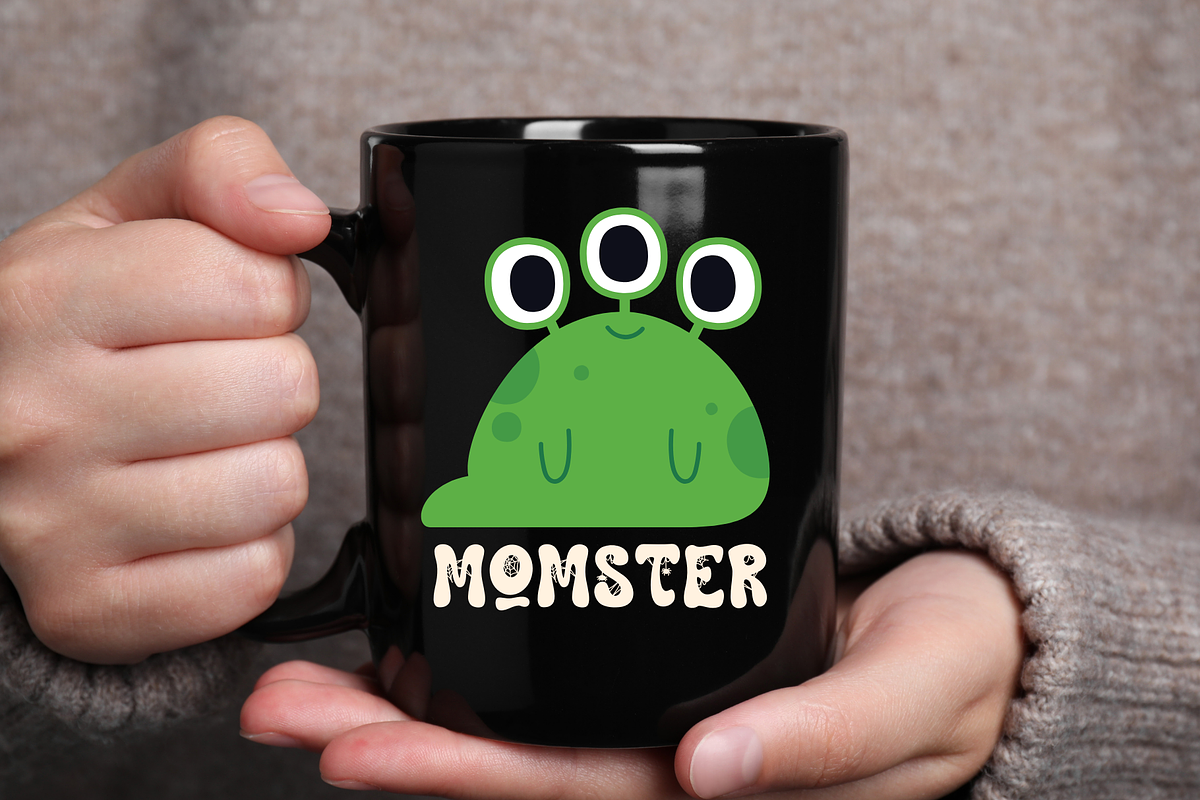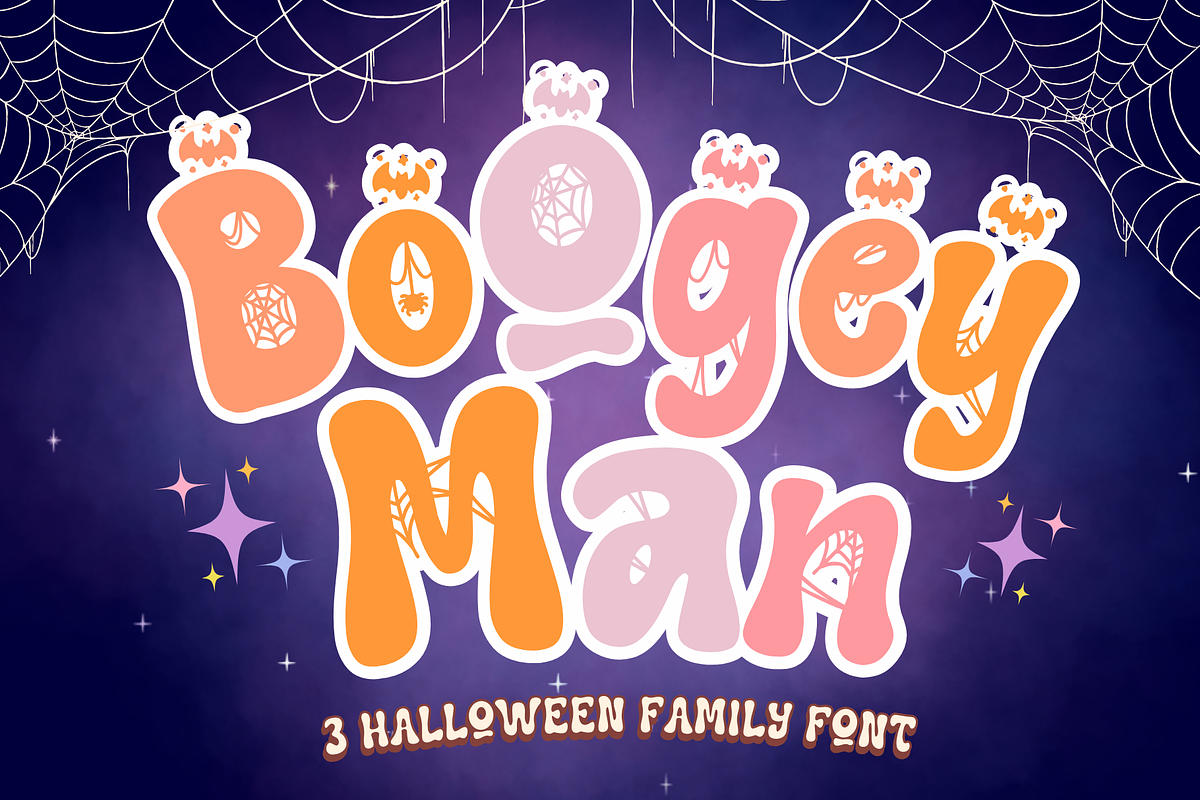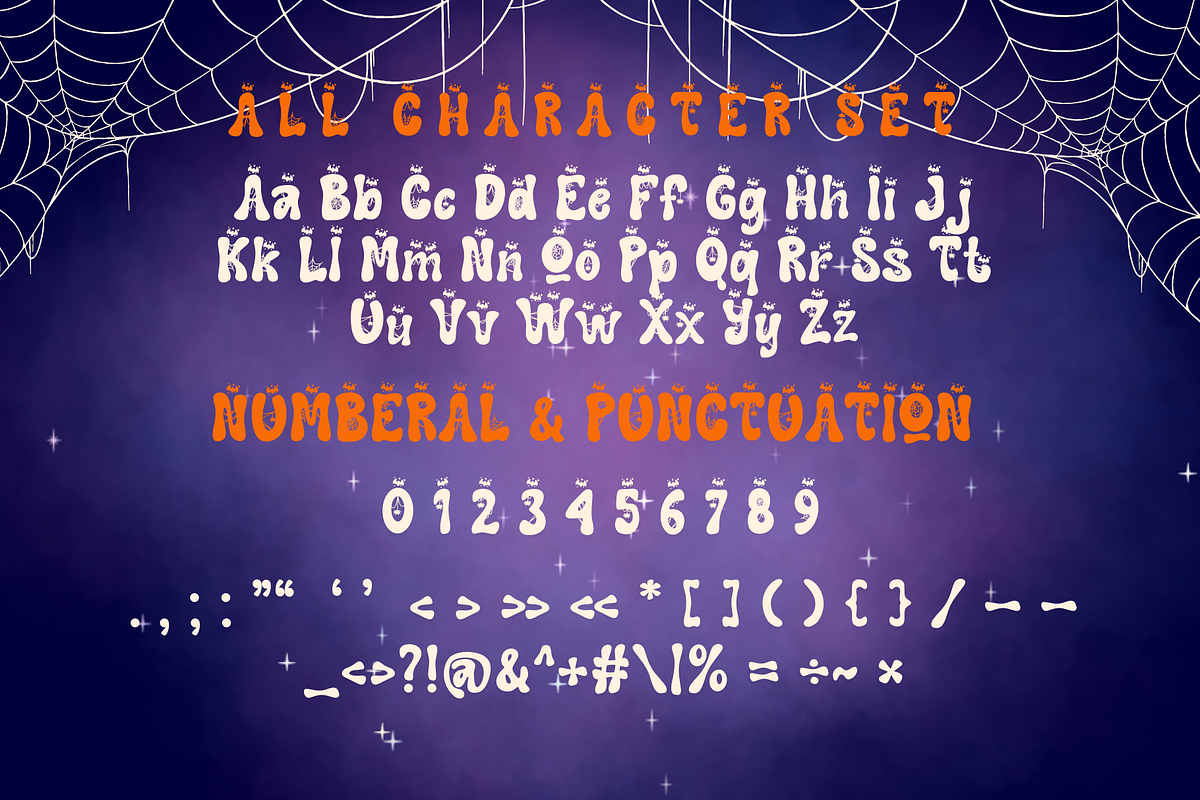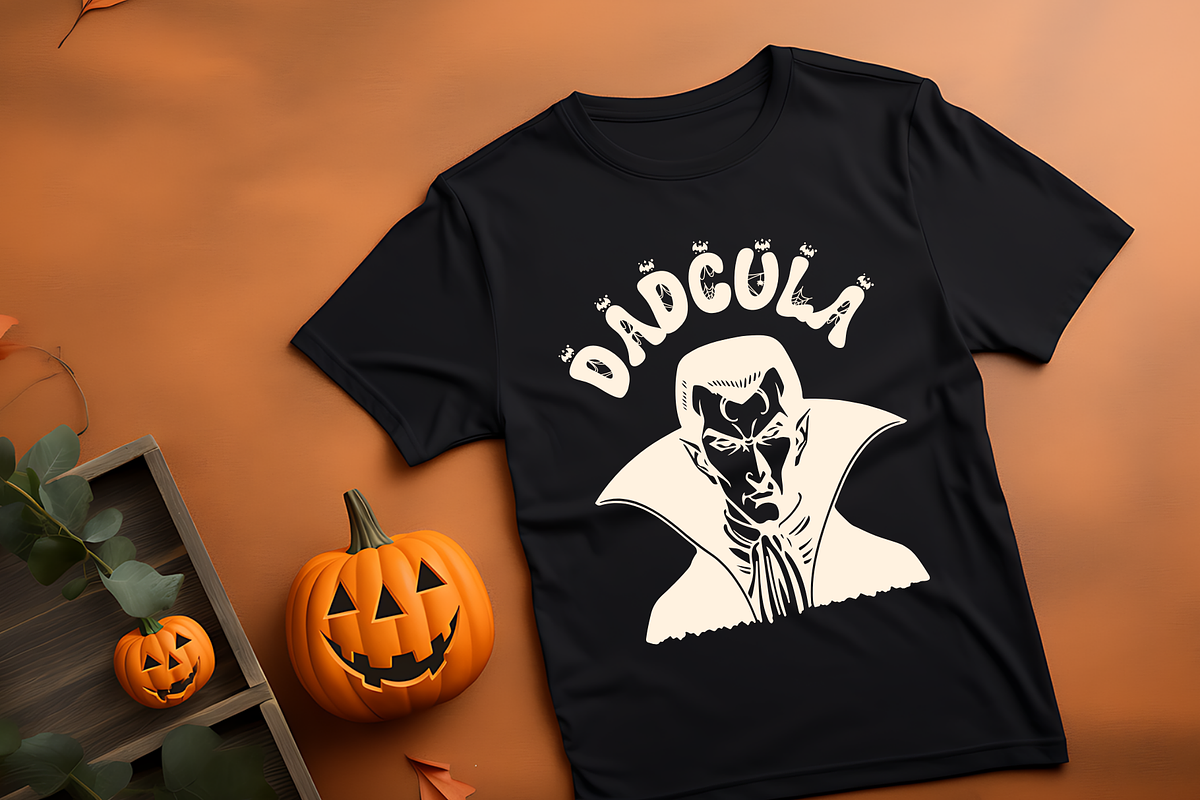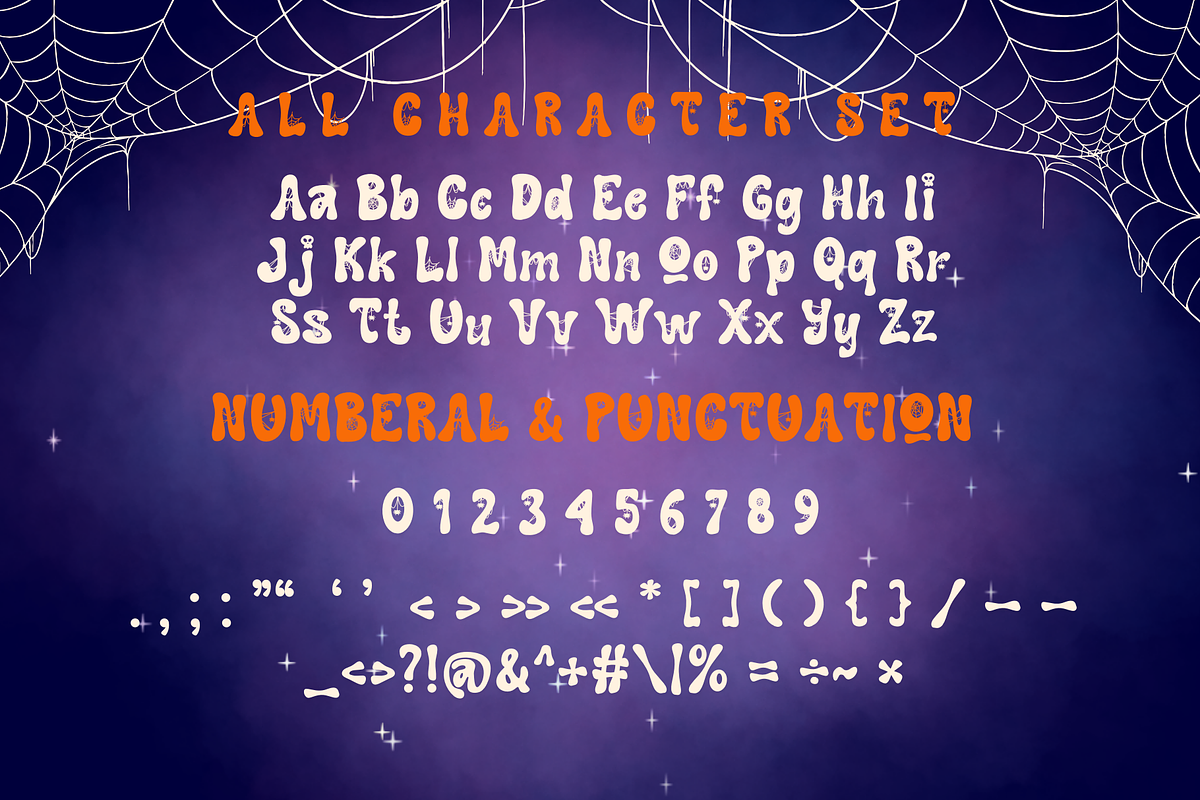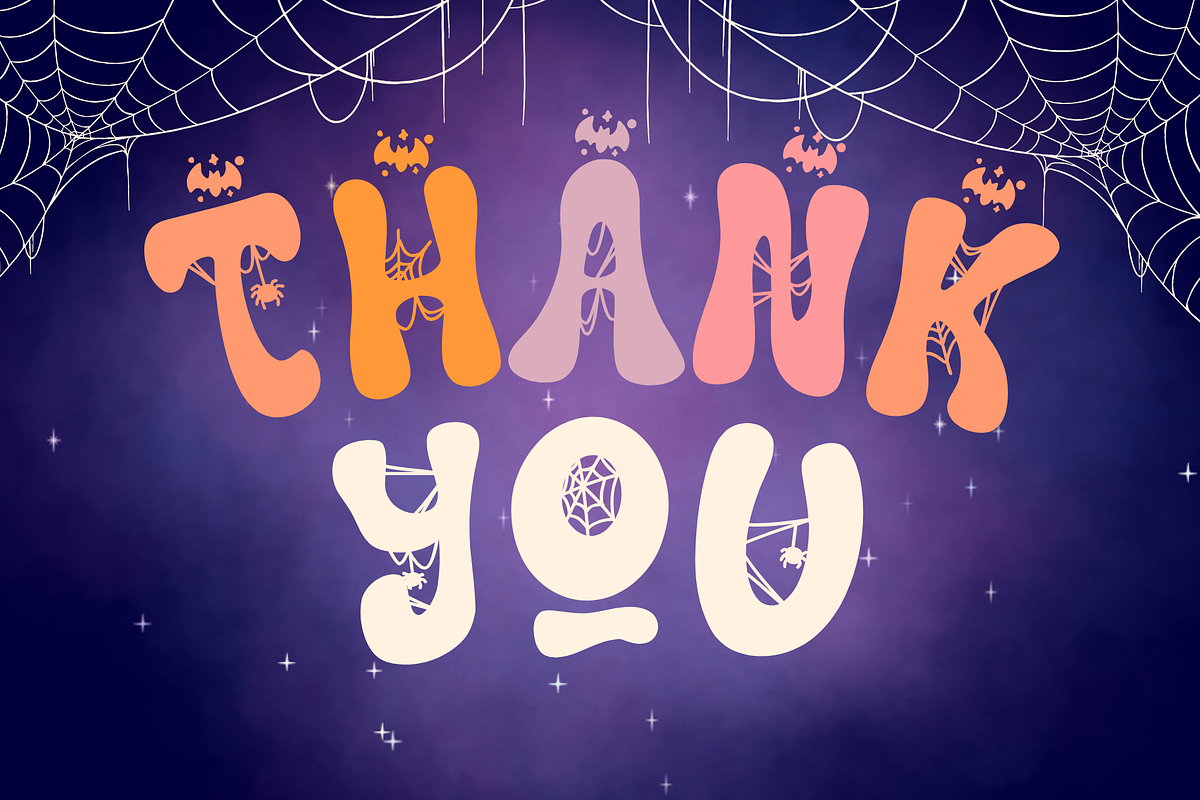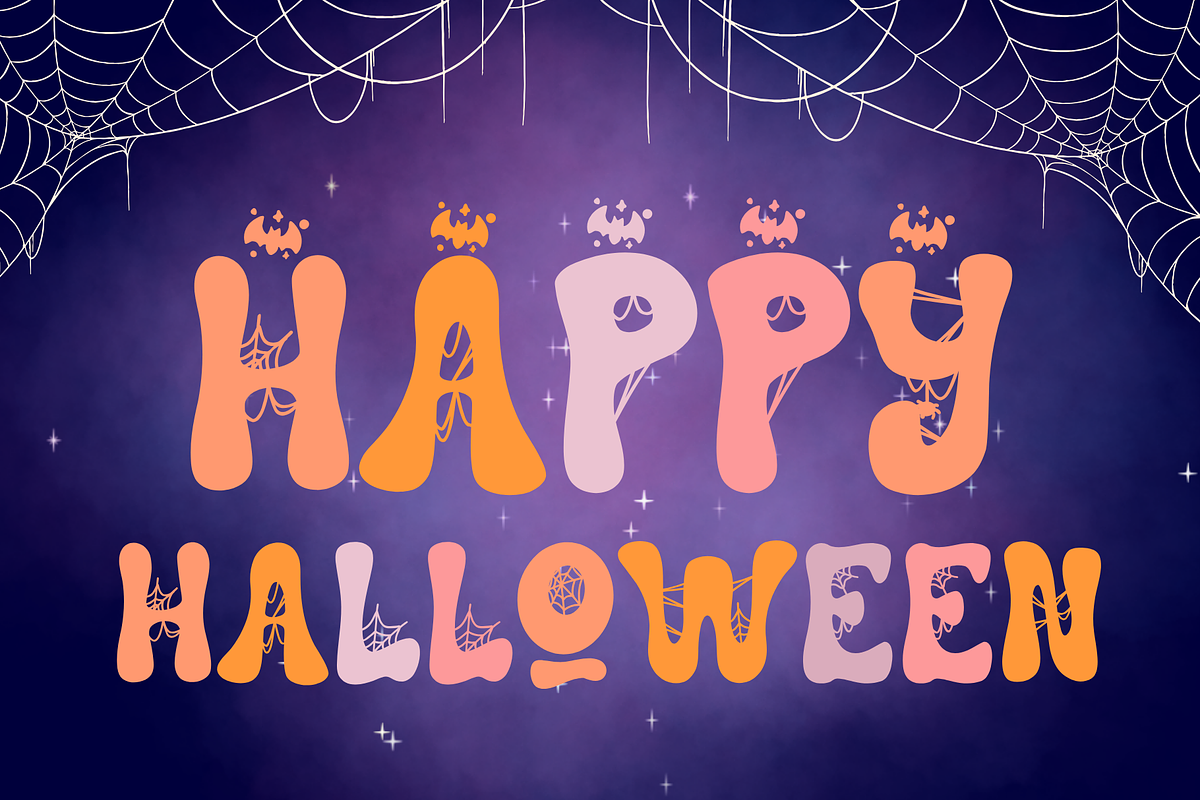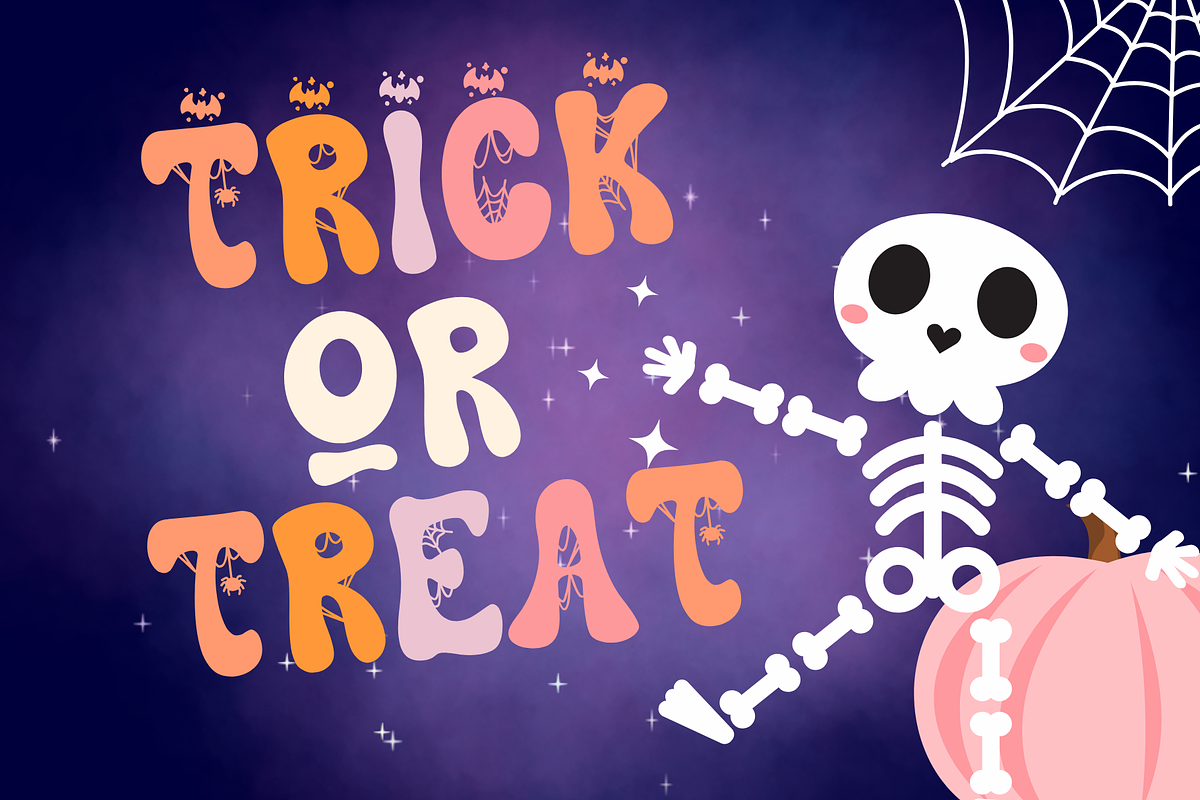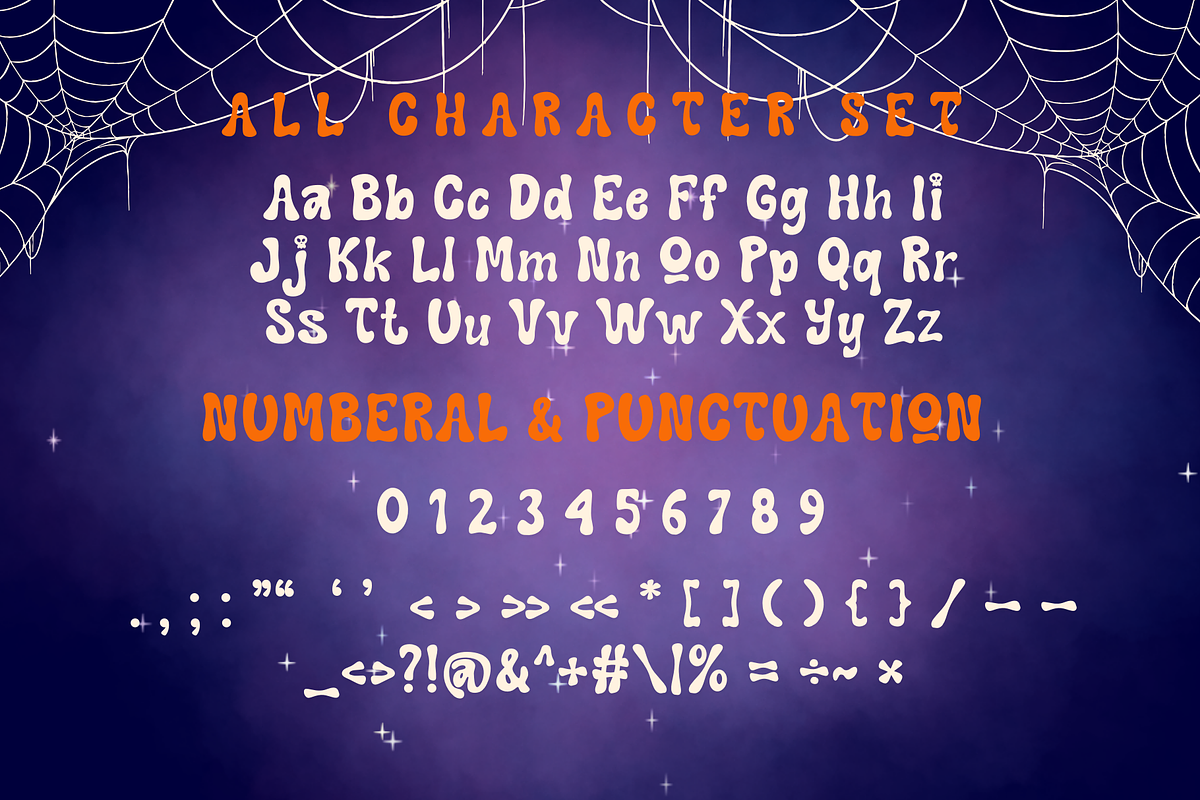
Boogeyman is Halloween font
Boogeyman is Halloween decorative font. It embodies playfulness and authenticity and is the perfect choice for all your favorite projects such as blog posts, logos, branding, ads, invitations, greeting cards, planners, photo albums, decorations, and more. Add it to any of your designs, and enjoy the results!